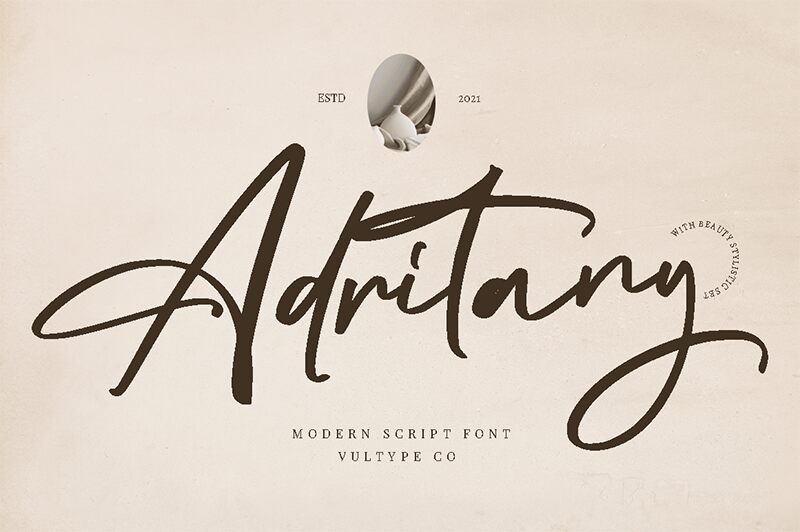
Adritany font by Vultype is a free handwritten font with an elegant, flowing design inspired by natural handwriting. It blends smooth, dynamic, and expressive elements to create an undeniably sophisticated and modern script with an artistic flair. The letters are not too constructed or precise, but rather relaxed and spontaneous for a natural and aesthetic look.
A good application for Adritany font includes wedding invitations, greeting cards, mugs, stickers, clothing, brand logos, and other objects that deserve a personal touch. Cover book designs, posters, and advertisements are equally great ideas. For additional impact, use the font to create short animations.